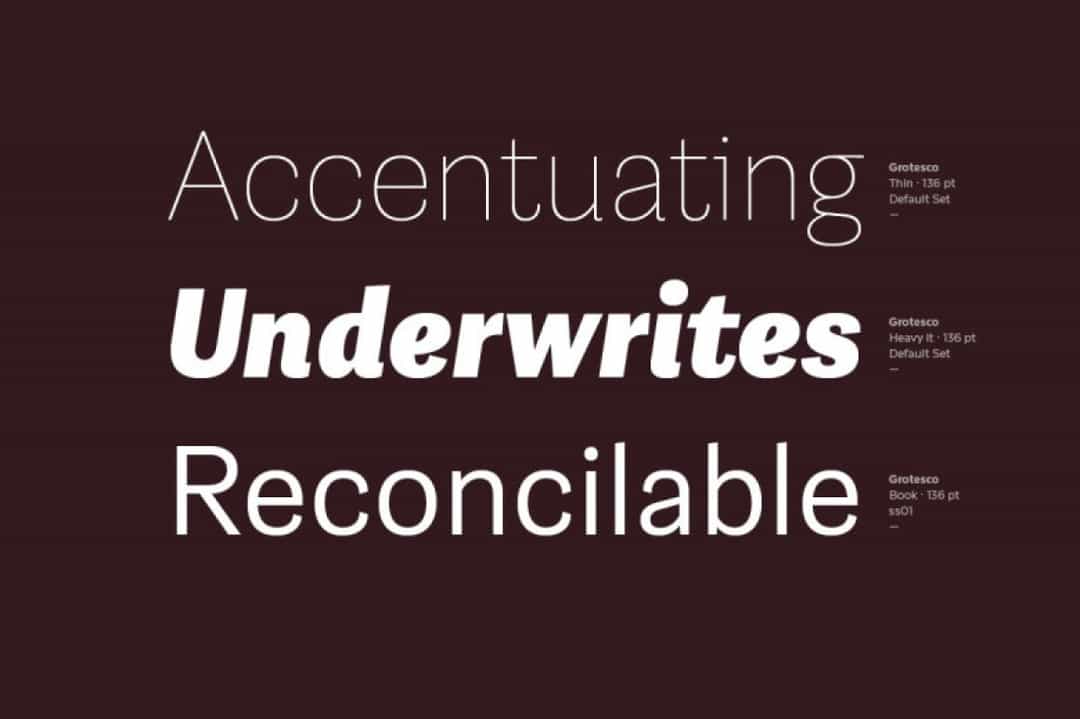
Grotesco Sans Serif font is an attractive blend of the capabilities and functionality associated with a standard American Grotesk typeface and Latino flair and flow. Though serious in tone, its two sets add flair to branding logos designs.